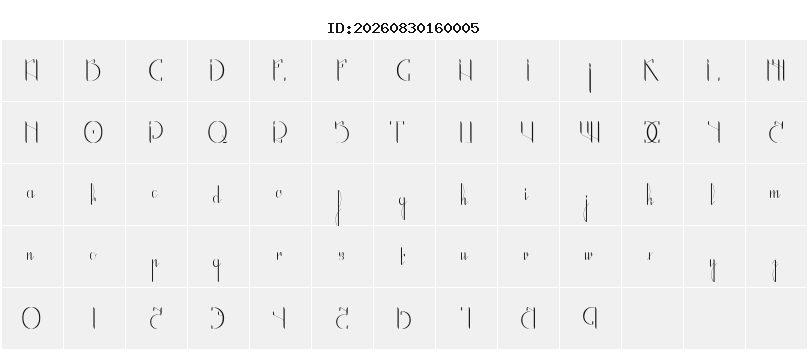
The Black Manba Preview
• Font Name: The Black Manba
• Full Font Name: The Black Manba
• Designer: M.K.V
• Manufacturer: M.K.V
About The Black Manba.ttf
The Black Manba.ttf is a modern, elegant sans-serif font designed for ultimate readability and visual harmony. Perfect for branding, headlines, web design, and print materials.